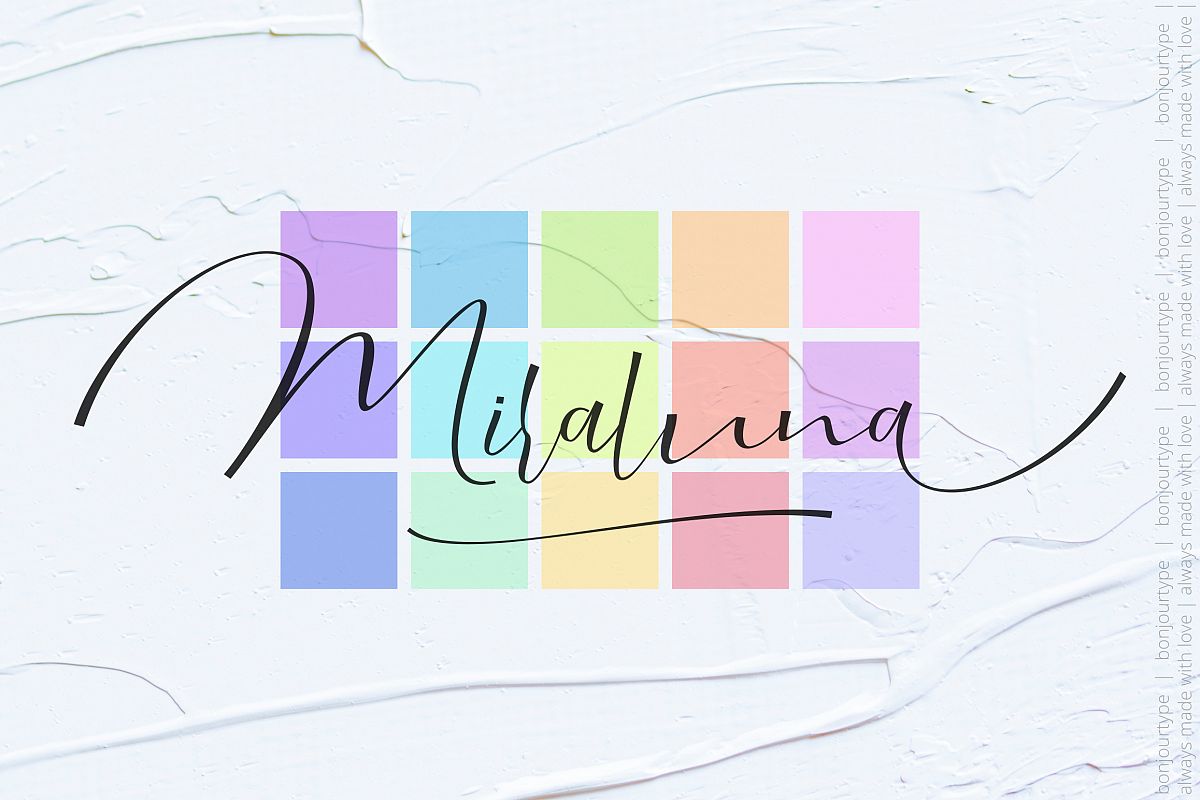
Miraluna | Stylized
This hand-drawn and cut font is perfect for creating stylish & stylish letters. Whether it's for logos, product packaging, or merchandise. Miraluna is guaranteed to provide the best quality that is not wrong with your text.
Miraluna also includes a full set of uppercase and lowercase letters, multilingual symbols, numbers, punctuation. The font has a cut texture, so it will be perfect for all types of printing techniques and you can do embroidery, laser cutting, gold foil etc.